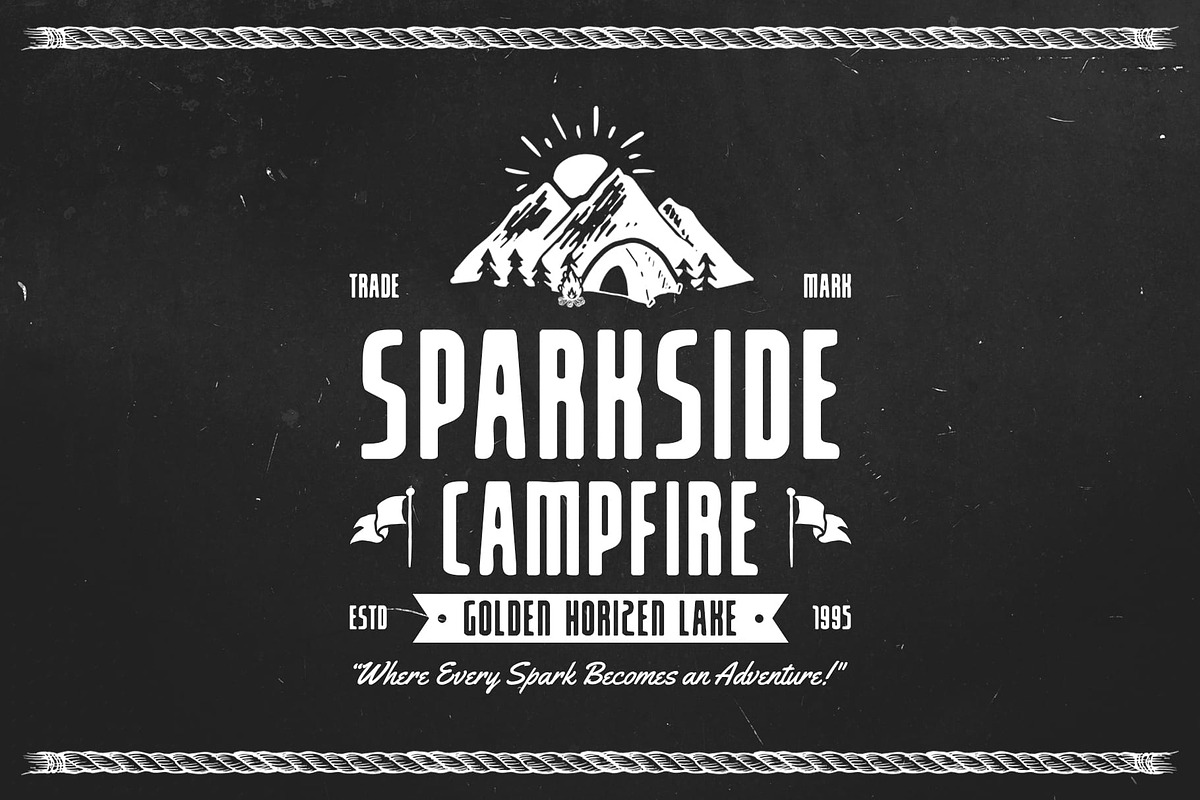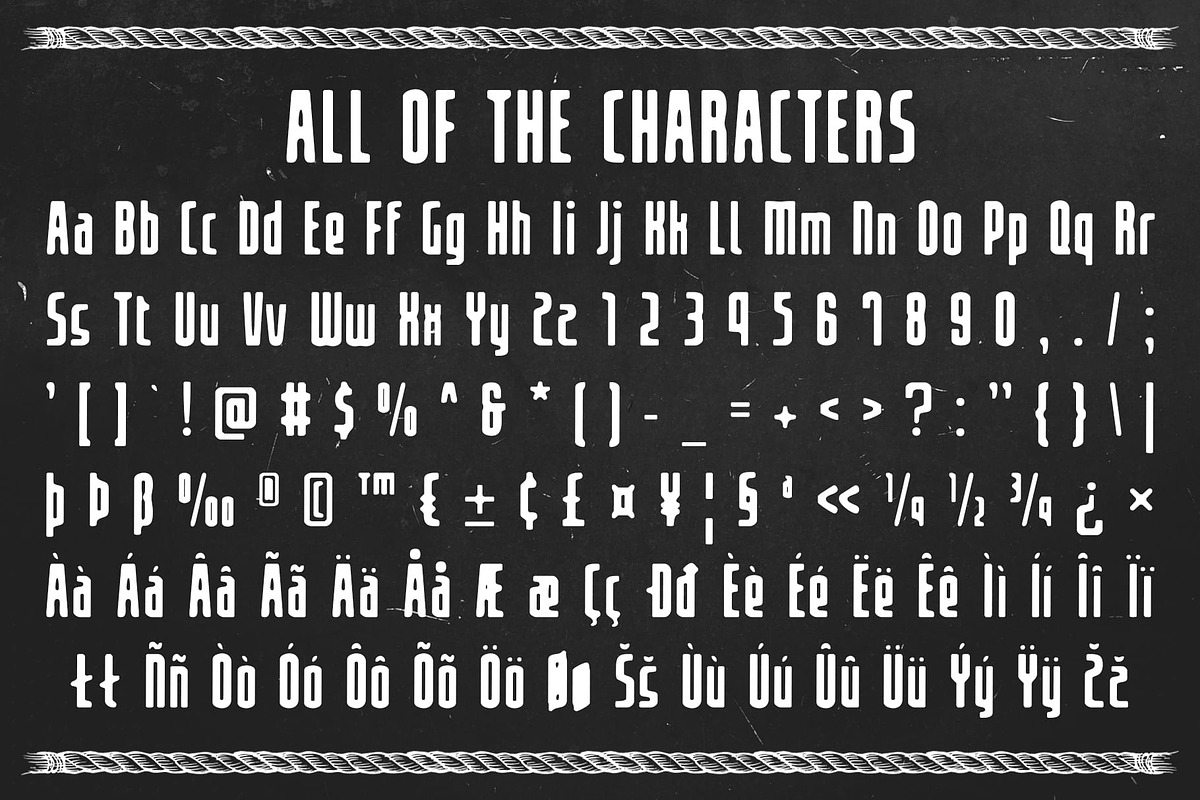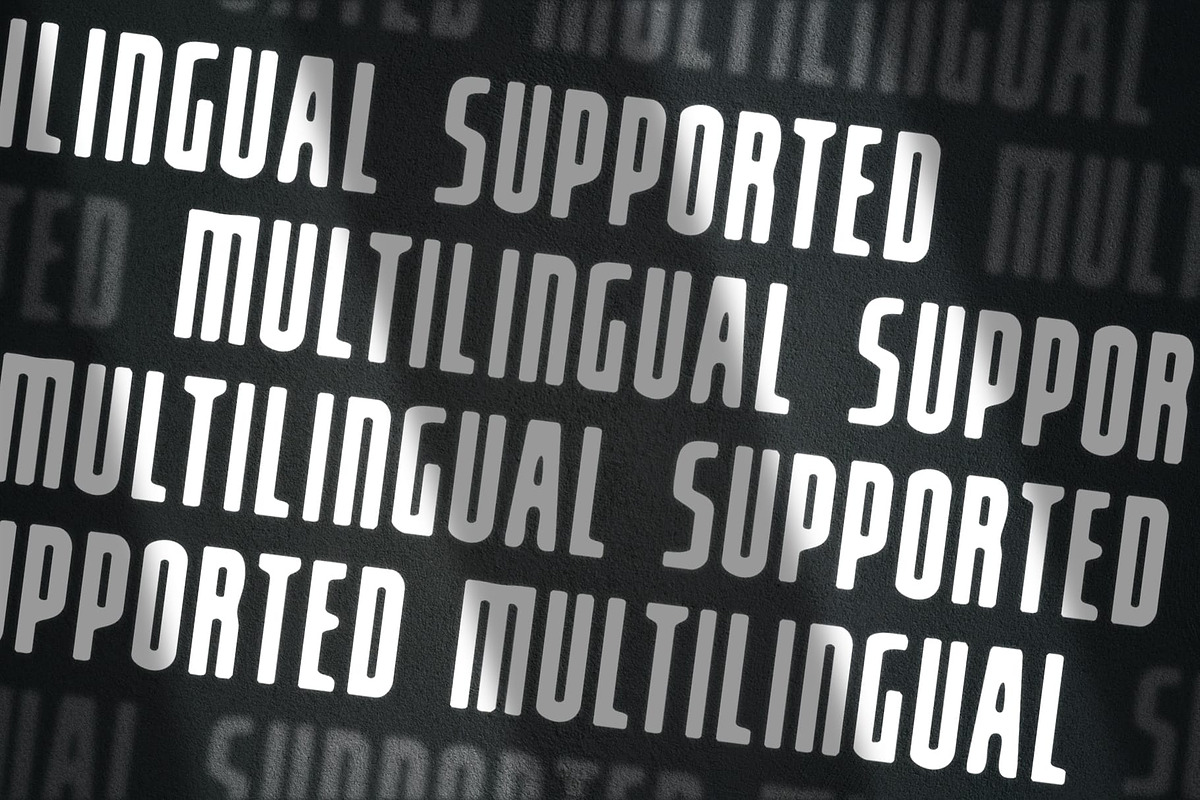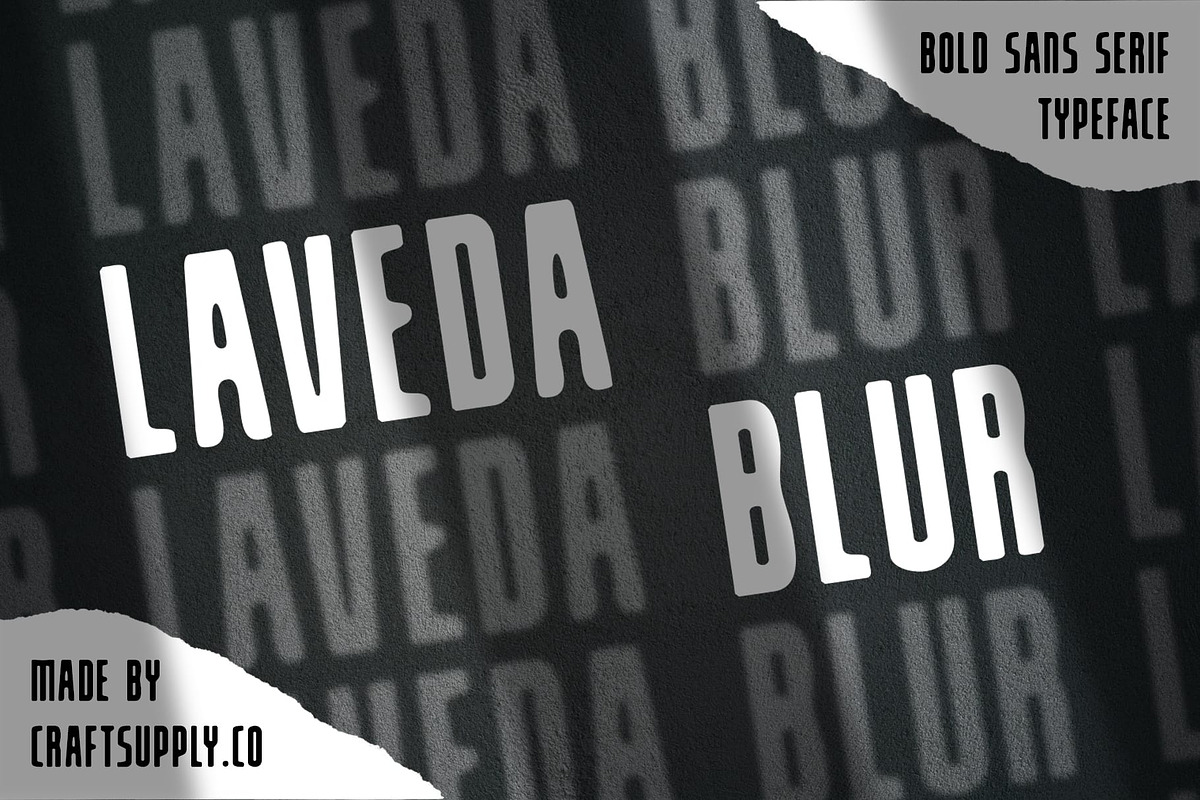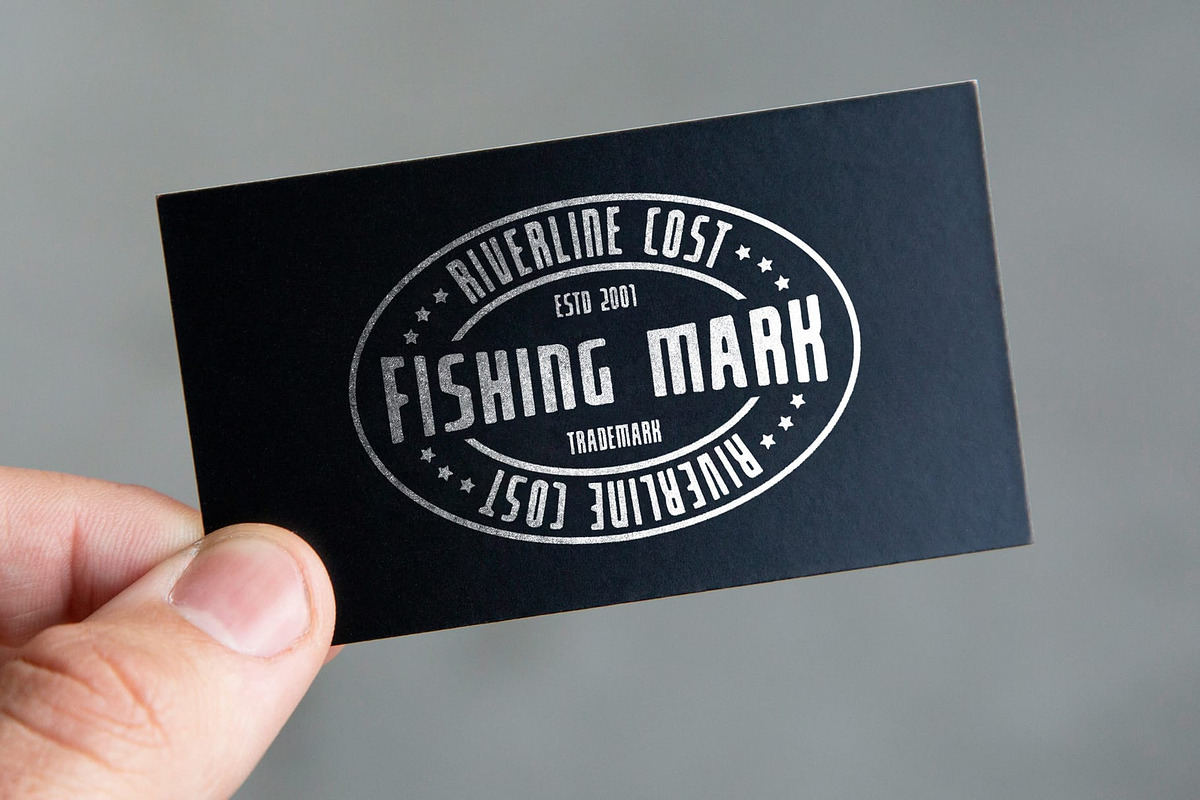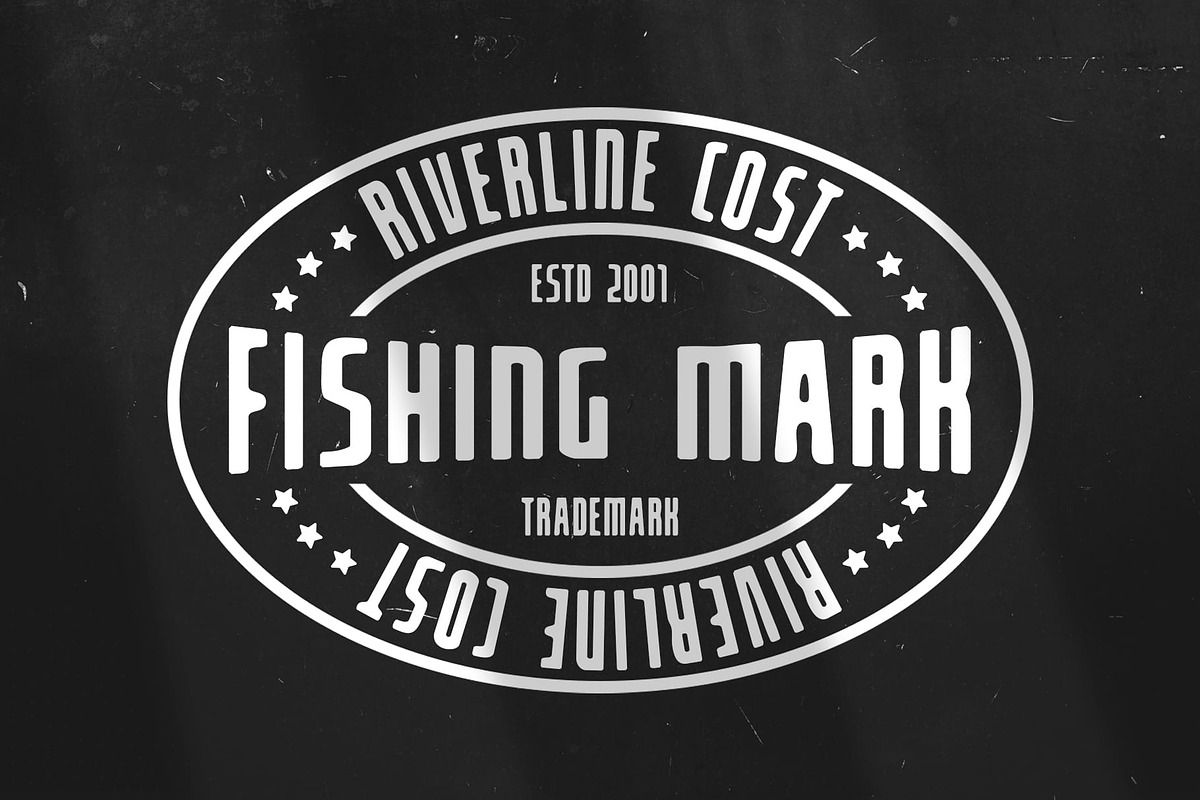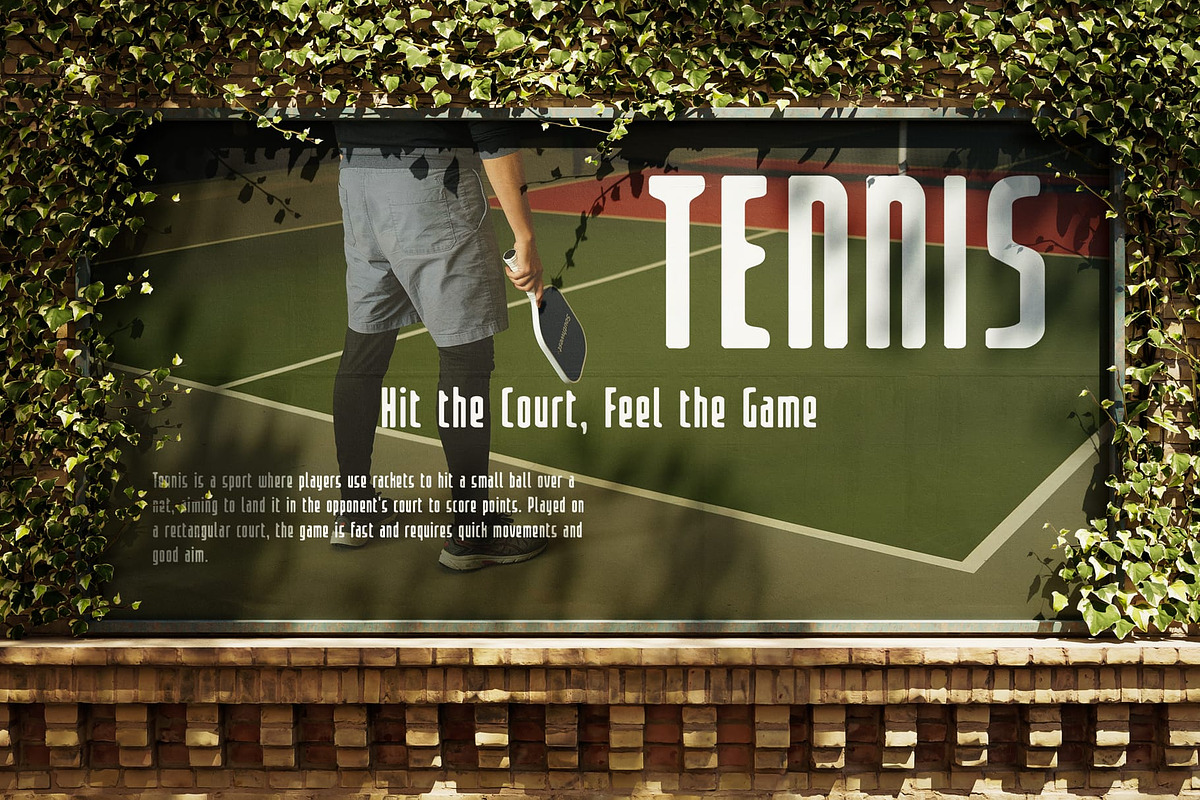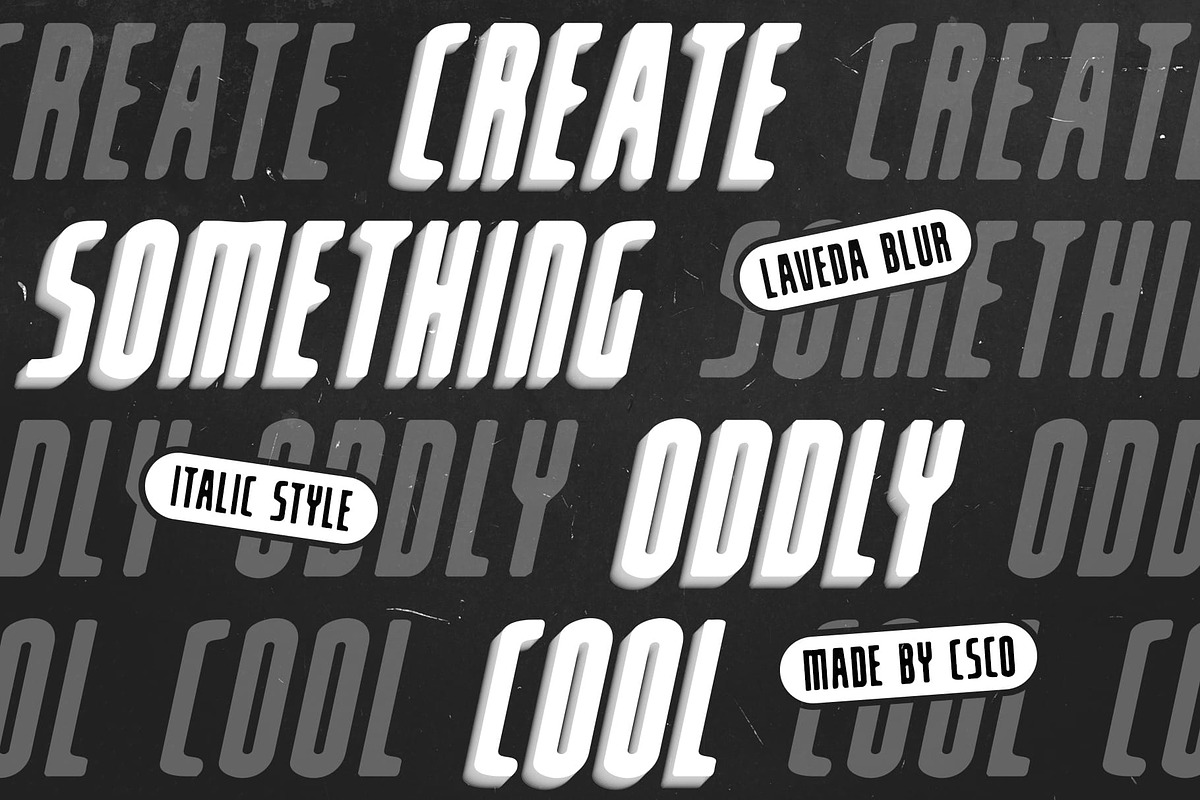
Laveda Blur
Laveda Blur Font: A Bold Sans Serif Font with Dynamic Appeal
Striking Modern Sans Serif Design Laveda Blur is a modern sans serif font that stands out with its bold design and captivating blur effect. Featuring clean, thick lines, this font creates a prominent and assertive impression that commands attention. Its contemporary characteristics make it a perfect fit for designs seeking a strong and stylish look.
Dynamic Blur Effect for Enhanced Visual Dimension What truly sets Laveda Blur apart is the innovative blur effect applied to its strong forms. This effect not only adds depth and visual interest but also infuses the font with a dynamic quality that enhances its modern aesthetic. The interplay between the bold design and the blur creates a sense of movement, making it ideal for contemporary projects that aim to leave a lasting impression.
Versatile for a Variety of Design Applications Laveda Blur excels in various design contexts, making it a versatile choice for branding, posters, and promotional materials. Whether used in headlines, logos, or digital media, this font is capable of capturing attention and conveying a message of innovation and style. Its ability to blend sophistication with a modern edge allows it to adapt seamlessly to diverse creative projects.